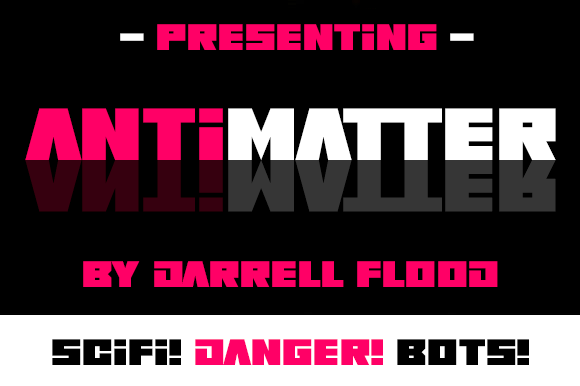
Unlocking the Secrets of the Cosmos with Antimatter Font
Have you ever stared up at the stars on a clear night, wondering what secrets the universe holds? For designers, that spark of curiosity often translates into a desire to create typography that’s out of this world. And what better way to achieve that than with a font that’s as bold as a black hole and as futuristic as a spaceship?
Enter Antimatter Font, a cutting-edge typeface designed to transport your designs to a realm of high-tech wonder. With its square, robotic style, this font is perfect for alien encounters, high-tech themes, and general use. Whether you’re crafting a sci-fi novel, designing a futuristic app, or simply looking to add some extraterrestrial flair to your project, Antimatter Font is the perfect tool for the job.
Antimatter Font Key Features
- Font Family: Antimatter Font is a modern sans-serif font, ideal for digital interfaces, branding, and publishing.
- Unique Characteristics: The Antimatter Font features a unique blend of geometric and organic elements, resulting in a clean, futuristic aesthetic that sets it apart from other sans-serif fonts.
- Language Support: Supports a wide range of languages, including Latin, Cyrillic, Greek, and many others, making it a versatile choice for global audiences.
Designer Review: Antimatter Font
Overall, I think Antimatter Font has some great features that make it stand out, but it also has some limitations that might hold it back.
- Unique aesthetic: Antimatter Font has a really interesting and futuristic feel to it, which makes it perfect for projects that need a bit of an edge.
- Legibility: Despite its futuristic feel, Antimatter Font is actually very easy to read, even at smaller font sizes.
- Customization options: The font comes with a range of customization options, including different weights and styles, which makes it easy to tailor it to your specific needs.
- Limited language support: Antimatter Font only comes in a limited range of languages, which might be a problem for projects that require a wider range of language support.
- Not suitable for body text: While Antimatter Font is great for headlines and titles, it’s not really suitable for body text due to its futuristic feel, which can be overwhelming.
Overall, I think Antimatter Font is a great choice for projects that need a bit of flair and a unique aesthetic. However, it’s not a one-size-fits-all solution, and you should be aware of its limitations before using it.
The Antimatter Font is ideal for:
- Cosmic-themed designs and projects.
- Science fiction-inspired artwork.
- Titles and headings that need a bold, futuristic look.
For best results, use the Antimatter Font in conjunction with other bold, geometric fonts to create a cohesive and futuristic design aesthetic.
Does the Antimatter Font include any special features or glyphs?
The Antimatter Font includes a range of special features, including ligatures, fractions, and currency symbols. It also includes a comprehensive set of glyphs for languages that require non-Latin scripts, such as Cyrillic, Greek, and Arabic. Additionally, the font includes a range of stylistic sets and language-specific variations to enhance its versatility and flexibility.